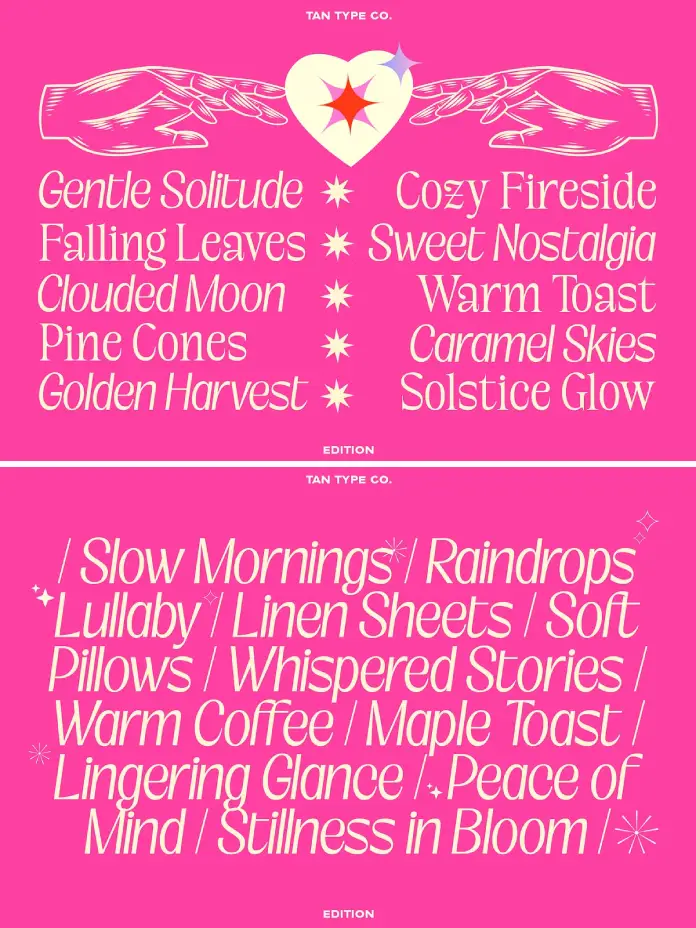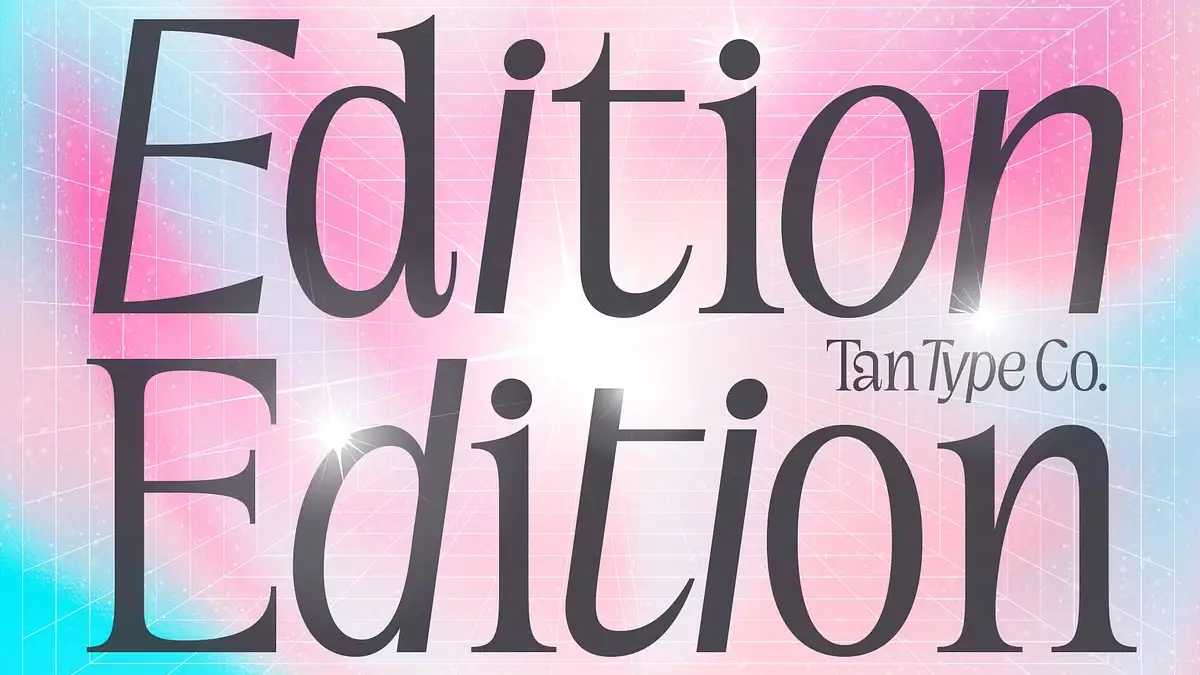
Check out the TAN Edition Typeface: The New Standard for Refined Modern Typography
Typography shapes our perception of a brand instantly. Designers constantly hunt for tools that balance neutrality with distinct character. The TAN Edition font arrives as a perfect solution to this ongoing search. TanType has built a reputation for expressive, retro-inspired display fonts. However, they pivoted interestingly with this release. This typeface strips away the ornamentation found in their other works. Instead, the typeface focuses on pure geometry and sleek lines. It offers clarity without sacrificing the unique personality associated with the foundry.
The TAN Edition font stands out because it refuses to be boring. Many sans serifs vanish into the background too easily. This specific typeface maintains a presence. It commands attention through subtle curves and balanced proportions. Designers looking for a versatile workhorse will find immediate value here. The typeface bridges the gap between strict professionalism and creative flair. Consequently, it works exceptionally well for luxury branding and editorial layouts.
What makes the TAN Edition font essential for contemporary design?
Designers often struggle to find a sans-serif that feels fresh. The market is saturated with geometric clones. The TAN Edition font breaks this monotony effectively. It brings a contemporary elegance that feels curated rather than manufactured. Every character within the typeface set demonstrates intentional craftsmanship. The letters flow together to create a seamless visual rhythm.
This typeface does not shout; it whispers with authority. Therefore, it suits high-end product packaging perfectly. The TAN Edition font allows the product to speak while providing a sophisticated framework. You rarely see this level of refined simplicity in standard font libraries. Moreover, the typeface adapts fluidly to digital interfaces. It retains legibility on small screens while looking crisp on large monitors. This adaptability makes it a crucial asset for UI designers.
Analyzing the Structure of TAN Edition
Let’s look closer at the anatomy of this typeface. The TAN Edition font features a uniform stroke width that conveys stability. However, the terminals and joints soften this rigidity significantly. This balance creates a “humanist” feel within a geometric structure. The typeface feels approachable rather than cold or corporate.
Designers appreciate how the typeface handles white space. The spacing between characters is generous yet cohesive. This allows for comfortable reading over longer text blocks. Furthermore, the TAN Edition font includes unique glyphs that add flavor to headlines. These subtle details prevent layouts from looking generic. A designer can rely on the typeface to carry a visual identity single-handedly.
Strategic Use Cases for the TAN Edition font
Choosing the right context for a font determines its success. The TAN Edition font shines in fashion and lifestyle sectors. These industries demand typography that looks expensive and timeless. The typeface delivers this aesthetic effortlessly. You can imagine it on a perfume bottle or a minimalist magazine cover.
Additionally, the typeface anchors complex web designs effectively. When you use chaotic imagery or vibrant colors, you need a grounding element. The typeface provides that necessary visual anchor. It organizes information without competing with other design elements. Consequently, art directors often select the typeface for lookbooks and portfolios. It organizes content while adding a layer of sophisticated polish.
Technical Excellence and Multilingual Support
A professional typeface must function globally. The typeface includes extensive multilingual support. This feature allows brands to maintain visual consistency across different regions. You do not need to switch fonts when localizing content for Europe or the Americas. The TAN Edition font handles various languages with the same typographic integrity.
TanType also promises free future updates for the typeface. This commitment ensures the software remains compatible with evolving design tools. Buying the typeface is an investment in a living tool. You gain access to expansions and improvements over time. This value proposition makes the typeface attractive for freelance designers and agencies alike.
Why Simplicity Wins in Current Trends
We currently see a shift away from maximalism. Brands now prefer quieter, more confident visual languages. The TAN Edition font fits perfectly into this “quiet luxury” trend. It signals quality through restraint. Using the typeface suggests that a brand does not need to scream to be heard.
This typeface proves that simple does not mean simplistic. The TAN Edition font holds up under scrutiny. Large-scale applications reveal the perfection of its curves. Simultaneously, small-scale use highlights its superb readability. Therefore, the typeface remains a safe yet stylish bet for long-term branding projects. It resists looking dated as trends cycle and change.
How does the TAN Edition font compare to other sans serifs?
The typeface offers more warmth and character than standard geometric sans serifs. It balances professional rigidity with a humanist touch, distinguishing it from generic system fonts.